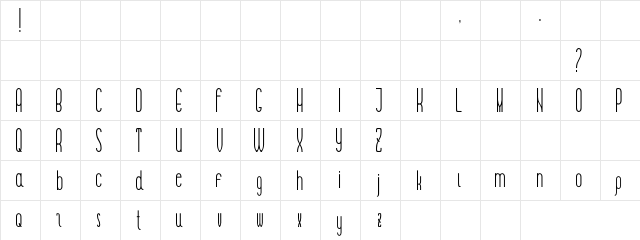
LAMPA Regular
| Foundry | PYRS Fontlab Ltd. / Made with FontLab |
| Designer | Slava Krivonosov aka Vampdesign |
LAMPA is a composed and adaptable typeface that performs quietly and consistently across a wide range of design contexts.